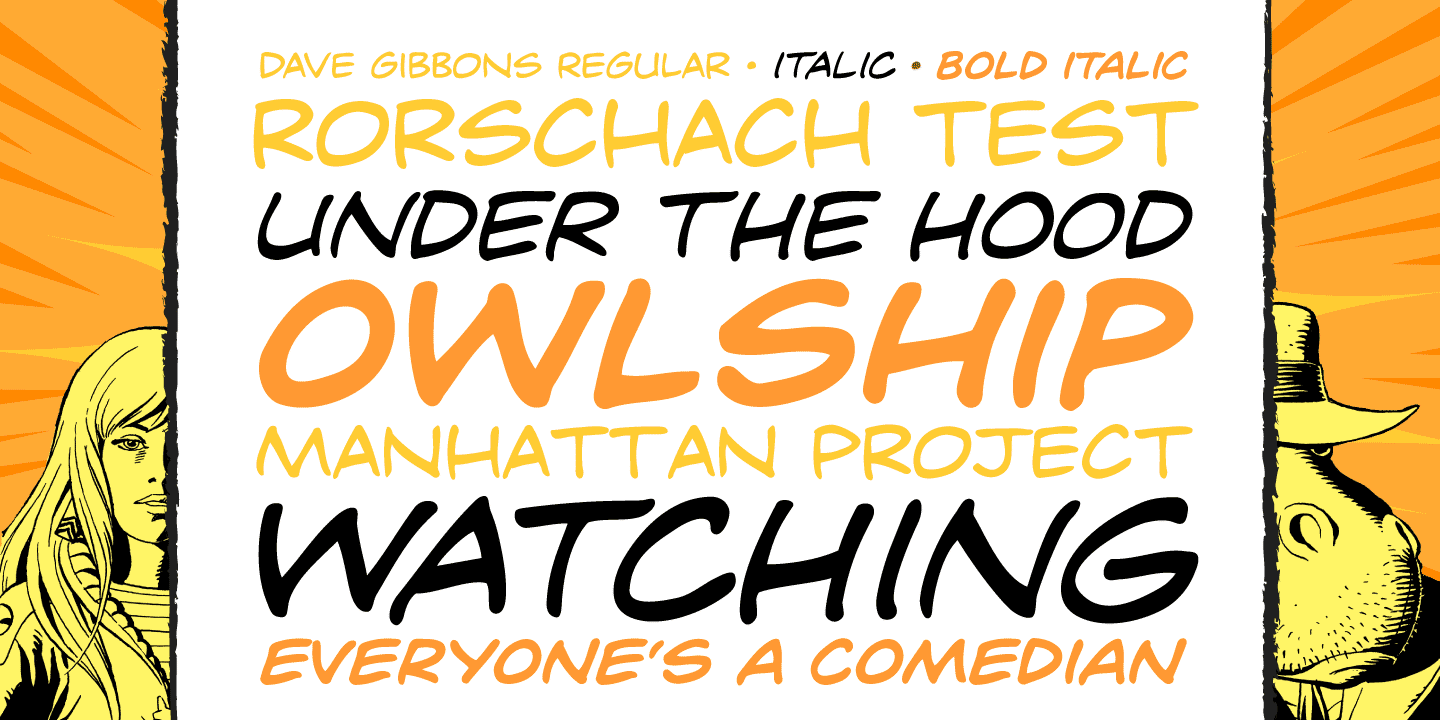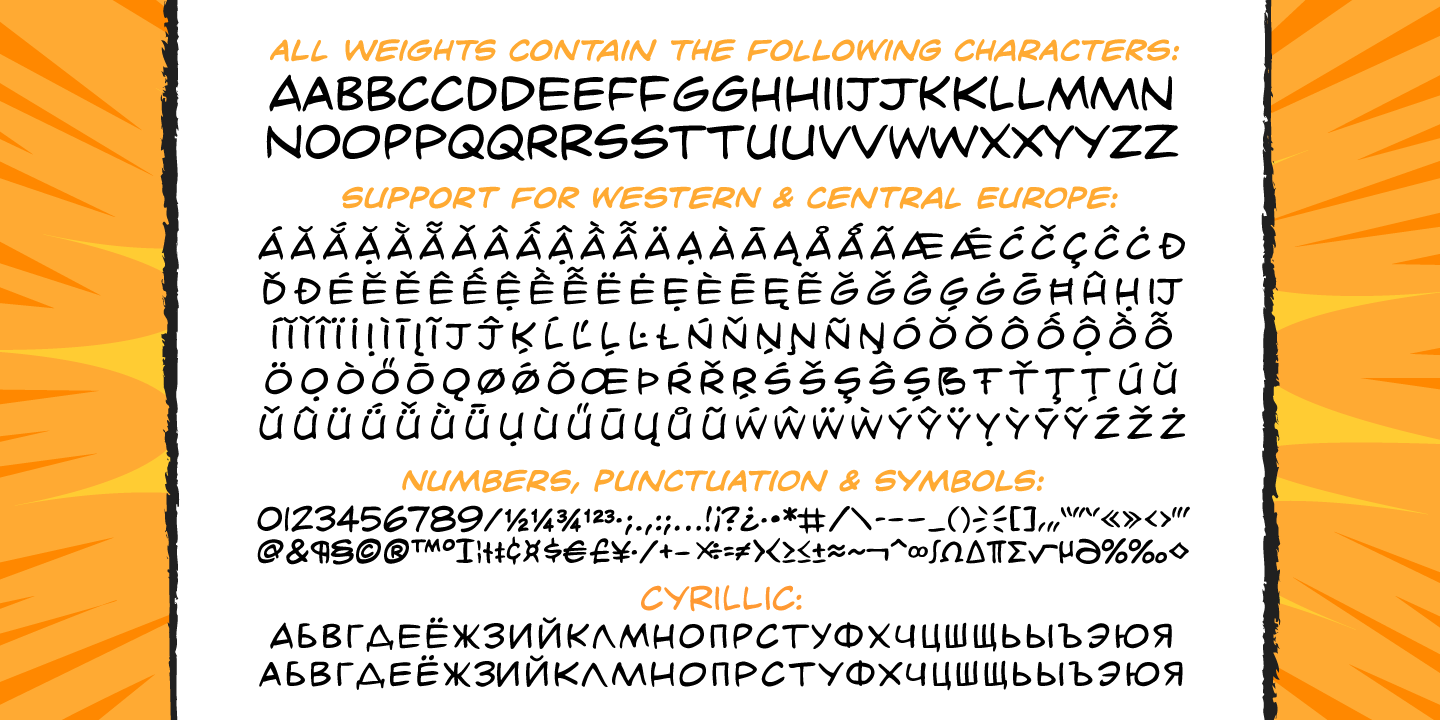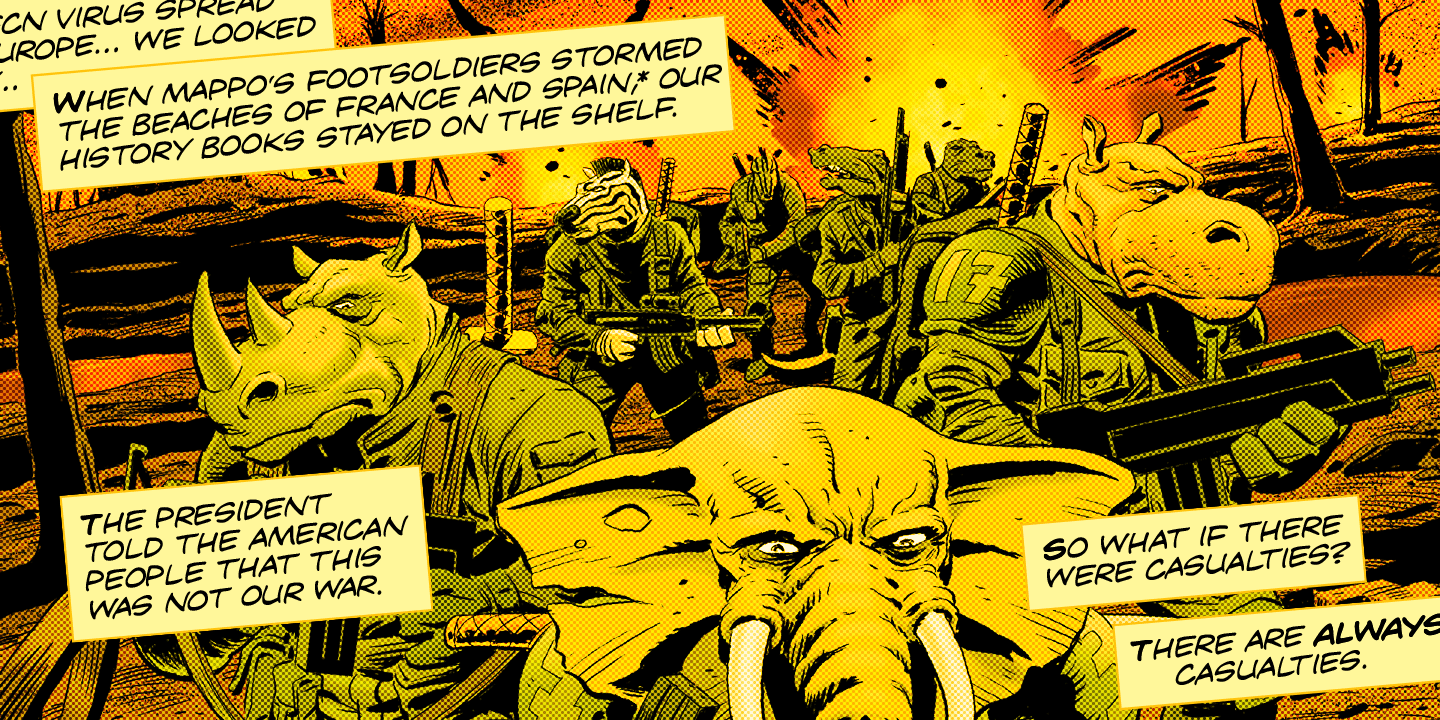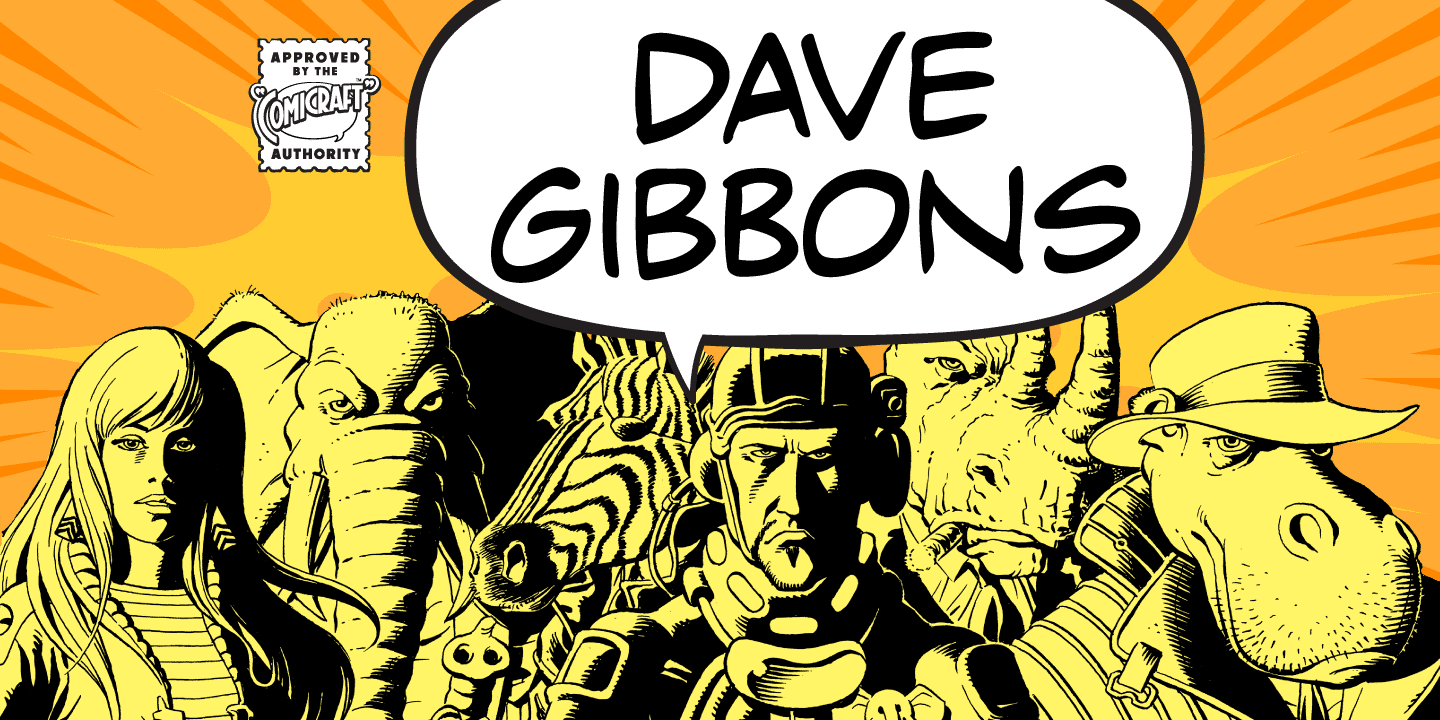
Dave Gibbons
About Dave Gibbons
Based on comic book reniassance gentleman Dave Gibbons’ easy-on-the-eye hand lettering, this is the font Dave himself uses to letter projects such as STAR WARS: VADER’S QUEST, MARTHA WASHINGTON & BATMAN: BLACK & WHITE. As for why Dave…